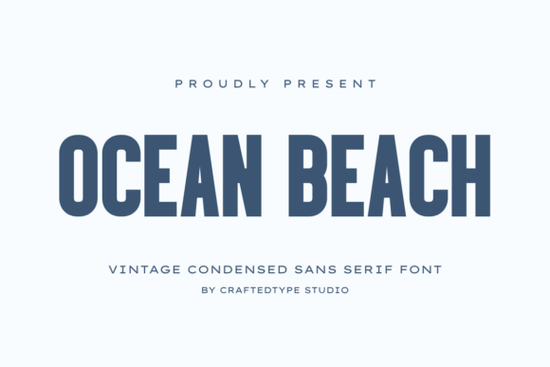
If you're on the lookout for a font that blends sleek, stylish design with a vintage touch, the Ocean Beach Font might just be what you need. This condensed sans serif font is designed for creators who appreciate clean aesthetics and strong visual impact. With its tall, narrow letterforms and timeless retro charm, it's perfect for a variety of creative projects.
Why Choose Ocean Beach Font?
Ocean Beach Font stands out with its unique blend of modern and vintage elements. Its tall, narrow letterforms make it ideal for designs where space is at a premium, such as Print On Demand (POD) projects like t-shirts, posters, mugs, and tote bags. The font's versatility also makes it suitable for branding, logos, and modern packaging, fitting both professional and playful designs.
Perfect for Summer-Themed Projects
With its coastal vibe and minimalist aesthetic, Ocean Beach Font is a great choice for summer-themed projects. Whether you're designing a beach-themed poster or a set of summer merchandise, this font can add a touch of elegance and nostalgia. Its clean lines and retro charm make it particularly appealing for coastal branding and minimalist editorial layouts.
Versatile and Easy to Use
How Does It Compare to Other Sans Serif Fonts?
While there are many sans serif fonts available, Ocean Beach Font offers a distinctive look that sets it apart. Here’s how it compares to some other popular options:
- Vorn Font: Vorn is more geometric and has a cleaner, more modern feel. It's great for minimalistic and contemporary designs but lacks the vintage charm of Ocean Beach.
- Sugra Font: Sugra has a more organic and hand-drawn appearance, making it ideal for casual and whimsical designs. In contrast, Ocean Beach is more structured and refined.
- Cenura Font: Cenura is a classic sans serif with a more traditional and versatile style. While it's suitable for a wide range of projects, it doesn't have the same retro and coastal flair as Ocean Beach.
Where Can You Use Ocean Beach Font?
Ocean Beach Font is incredibly versatile and can be used in a variety of creative projects. Here are some ideas:
- Print On Demand (POD) Projects: Create eye-catching t-shirts, posters, mugs, and tote bags with a coastal or vintage theme.
- Branding and Logos: Develop a unique brand identity with a touch of retro charm. Perfect for small businesses and startups.
- Modern Packaging: Add a sophisticated and clean look to product packaging, making it stand out on the shelf.
- Editorial Layouts: Use it for magazine headers, article titles, and other editorial elements to give them a polished and professional appearance.
How to Get the Most Out of Ocean Beach Font
To make the most of Ocean Beach Font, consider these tips:
- Experiment with Different Sizes: Play around with different font sizes to see how they affect the overall look and feel of your design.
- Combine with Other Fonts: Pair Ocean Beach with a complementary font to create a balanced and visually interesting design. For example, a script font can add a nice contrast.
- Use Stylistic Alternatives: Take advantage of the PUA encoding to access and use stylistic alternatives and ligatures, adding a unique touch to your designs.
Final Thoughts
Whether you're a designer, crafter, print-on-demand seller, or a small business owner, the Ocean Beach Font offers a versatile and stylish option for your creative projects. Its blend of modern and vintage elements, along with its clean and elegant design, makes it a valuable addition to your font collection.